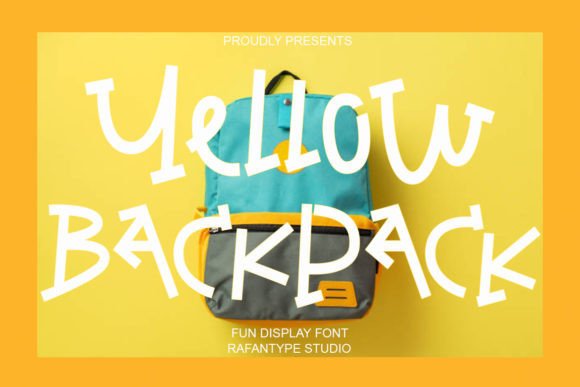
Are you looking for the perfect font to elevate your design projects? Look no further than Yellow Backpack Font, the best font for interior design! Created by the talented team at rafantypestudio, this font is sure to add a whimsical and playful twist to any design project.
Yellow Backpack Font is the ultimate font for those who want to inject a bit of fun into their designs. With its childish, quirky, and fun style, this font is perfect for any project that needs a touch of whimsy. Whether you're creating a logo for a children's brand or designing a flyer for a quirky event, Yellow Backpack Font is the perfect choice.
Not only is Yellow Backpack Font fun and playful, but it's also incredibly versatile. This font can be used for any purpose, making it a must-have for any designer's toolkit. Its casual and childish style makes it perfect for children-related designs, but it can also be used for a wide range of other projects.
With Yellow Backpack Font, you can make your crafts more attractive and fun. This font is sure to give your designs a unique and eye-catching look that will stand out from the crowd. Whether you're creating invitations, posters, or even t-shirts, Yellow Backpack Font will help you achieve unlimited gorgeous results.